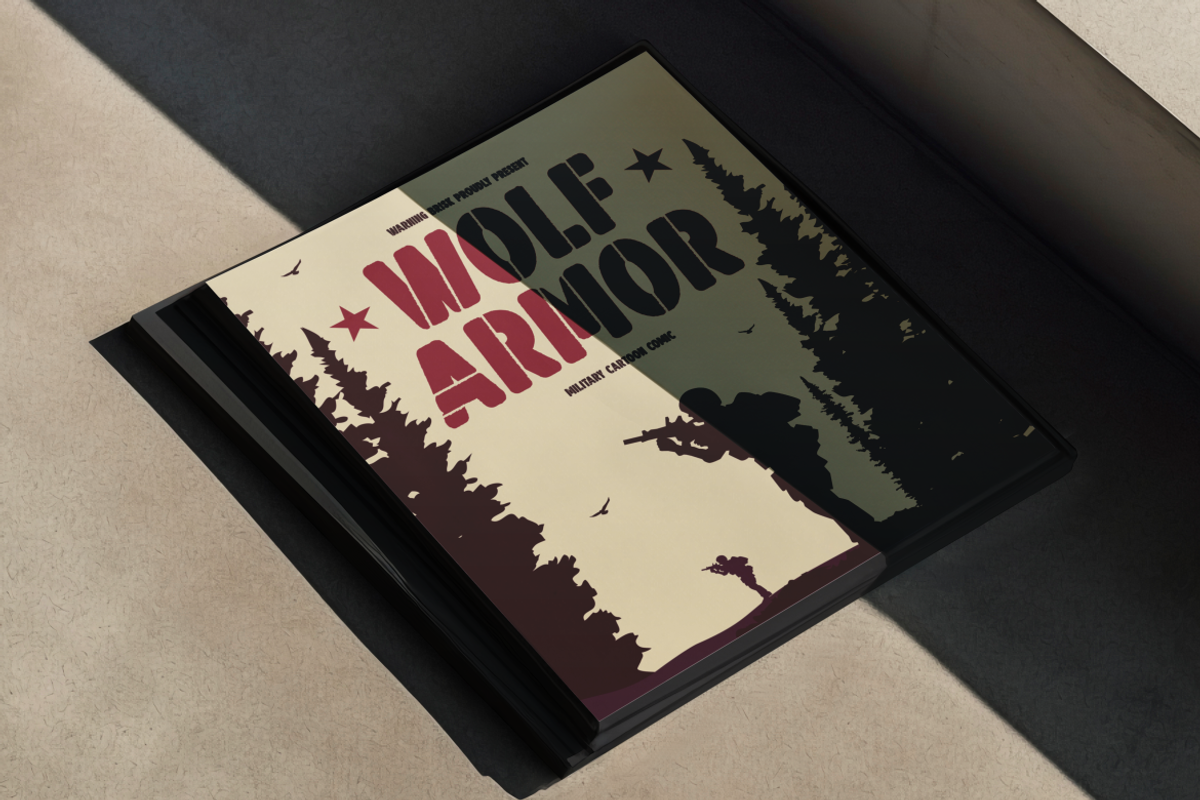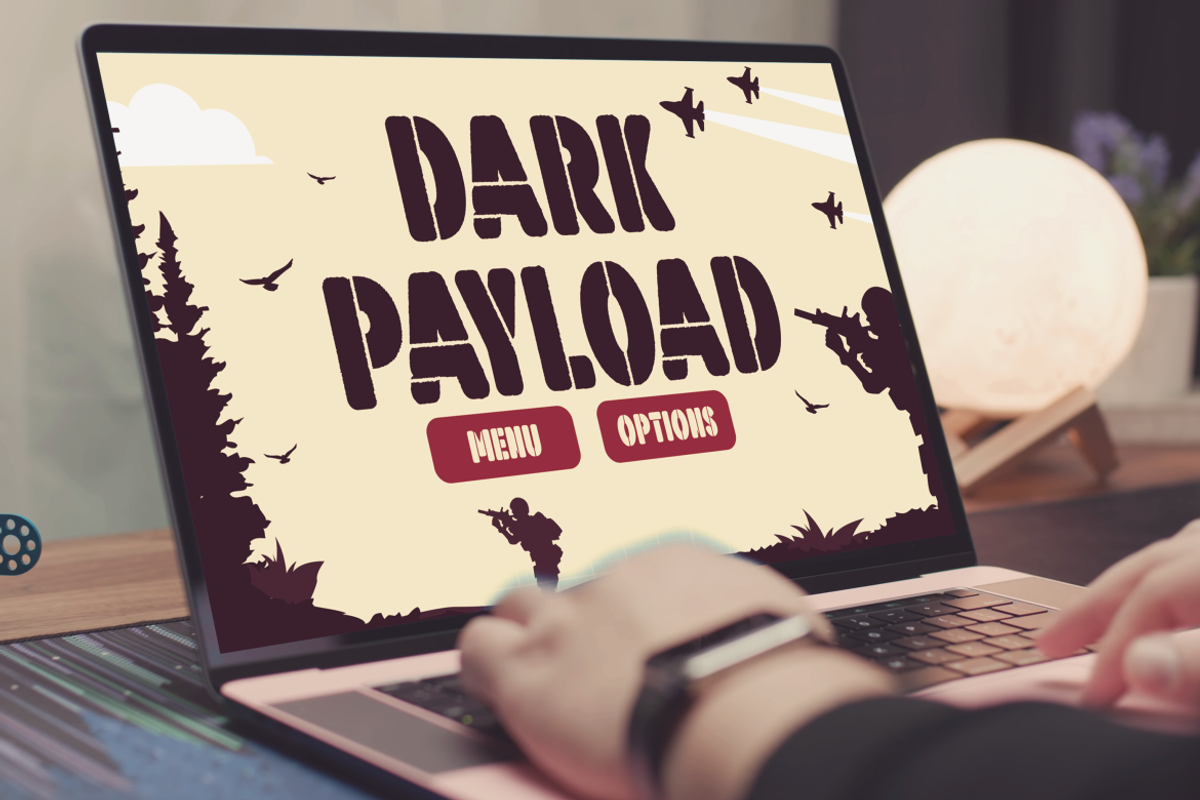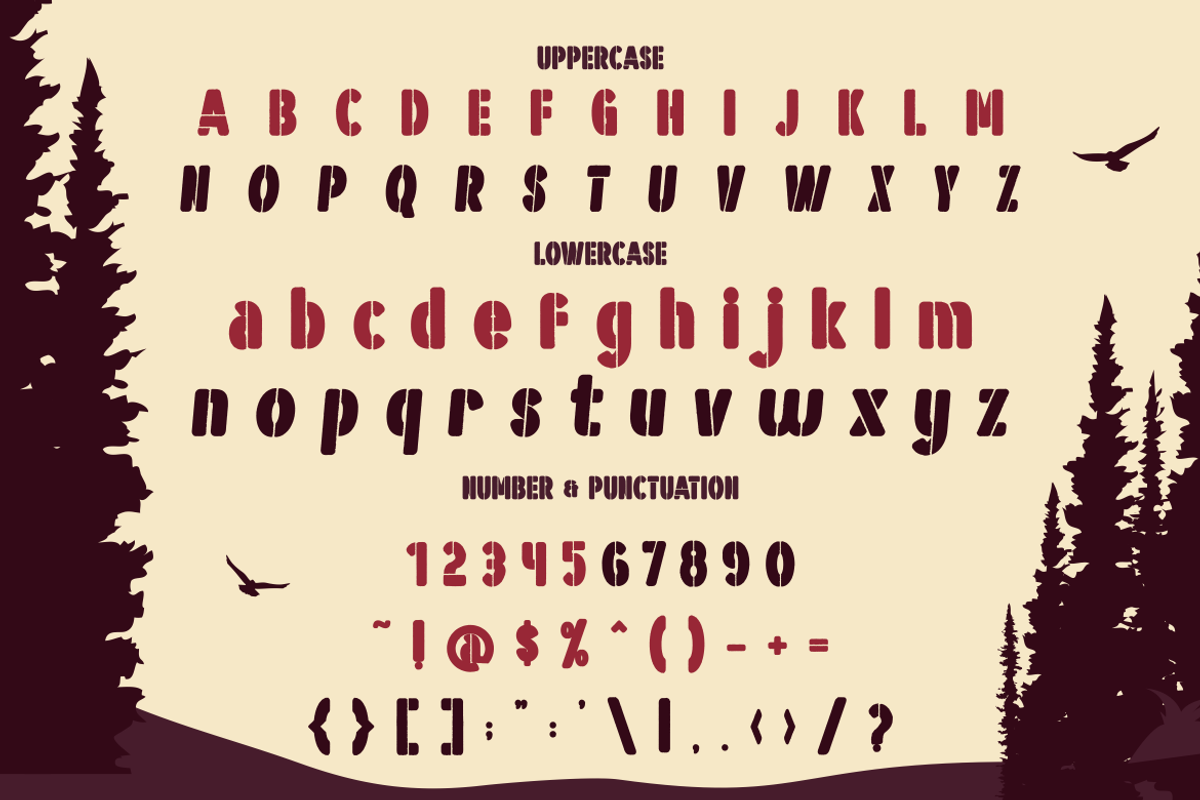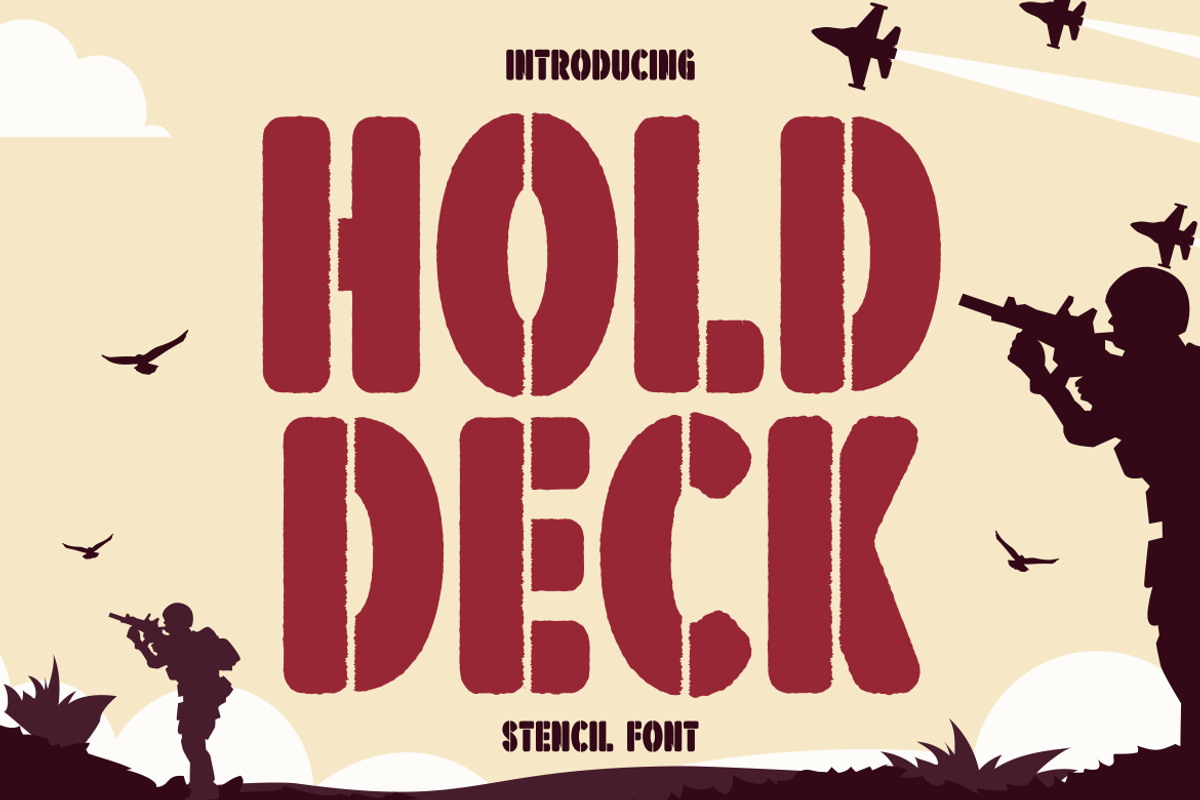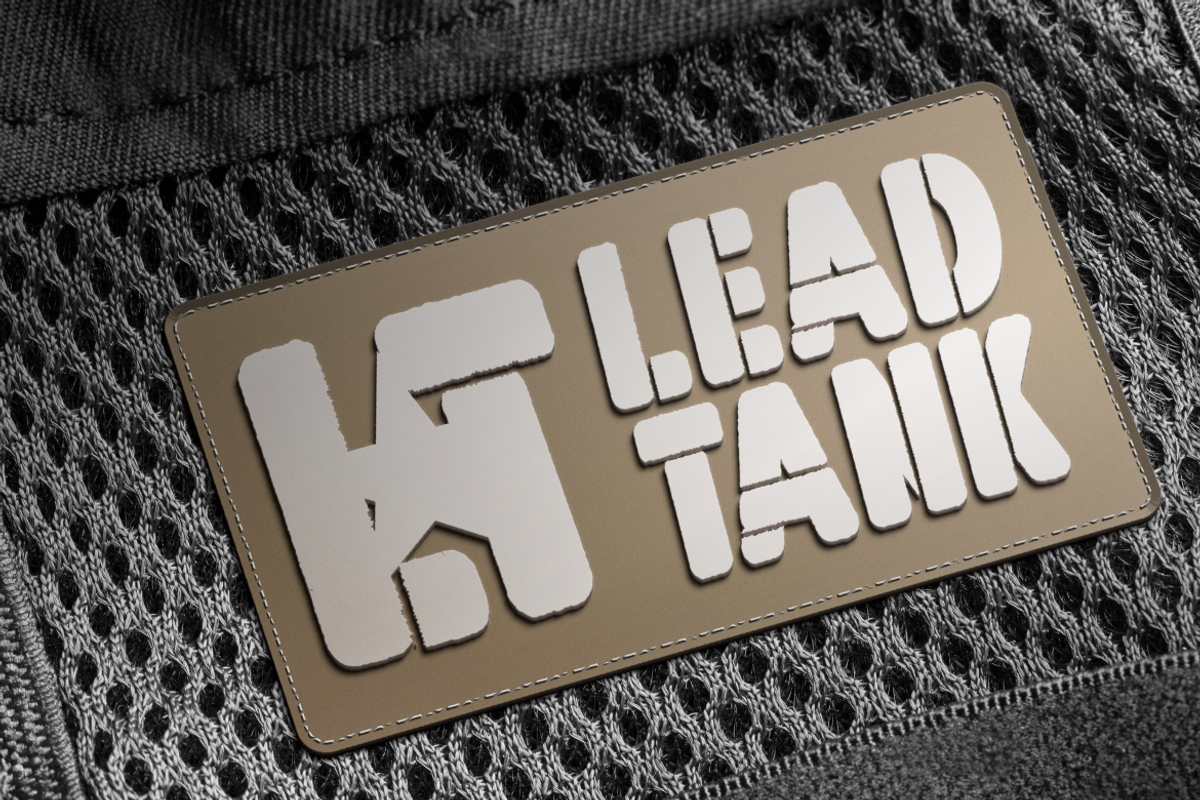
Hold Deck Stencil Font
Hold Deck Stencil Font is a bold and powerful display typeface inspired by classic army stencils and modern design needs. Each character is crafted with sharp, clean cuts that mimic authentic stencil shapes, giving it a rugged yet structured appearance. The font carries strong military vibes while keeping a playful edge, making it versatile for both serious and fun projects. Its thick, solid strokes ensure maximum readability, while the stencil cuts add unique personality and style to every word. The overall look feels commanding and confident, ideal for designs that need to stand out with authority.
This font is perfect for projects that demand a bold visual impact such as posters, film titles, video game covers, and branding with a strong presence. It also works beautifully on packaging, stickers, apparel prints, and even creative invitations with a military or adventurous theme. With uppercase, lowercase, numbers, and full punctuation included, Hold Deck Stencil Font offers flexibility for both digital and print use. Whether you are crafting a logo, a magazine cover, or a bold business identity, this font delivers a balance of strength, style, and creativity.